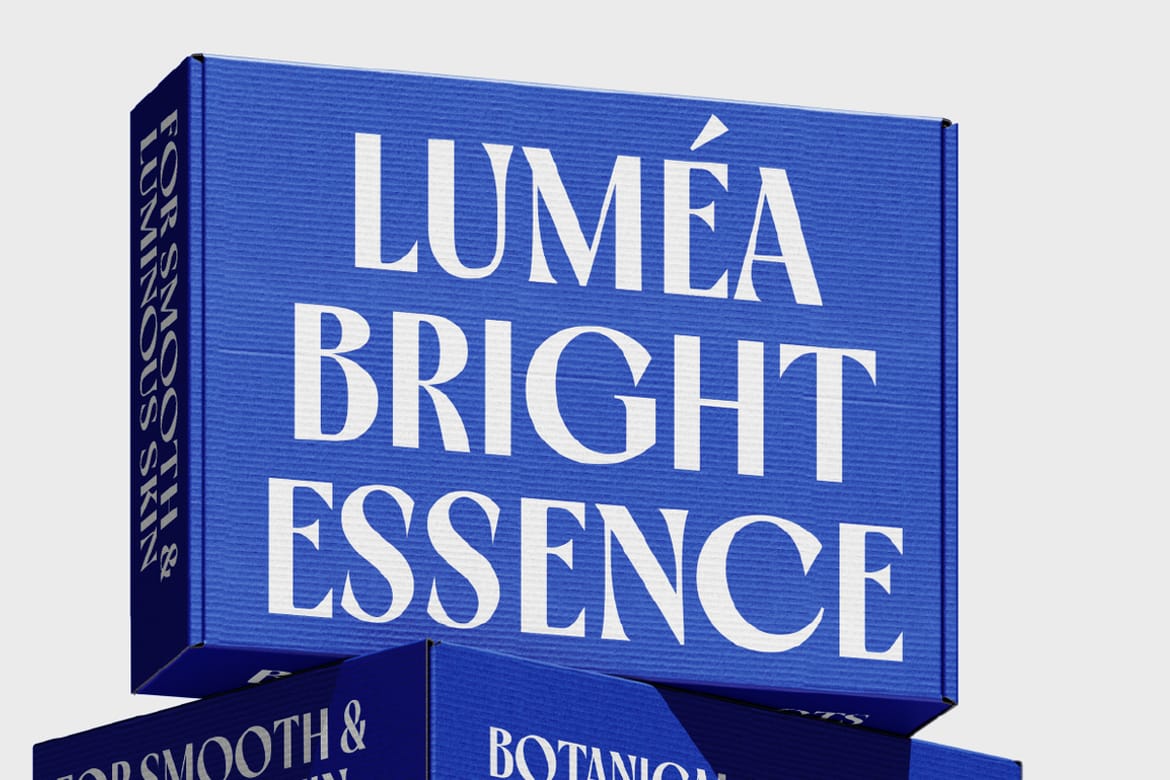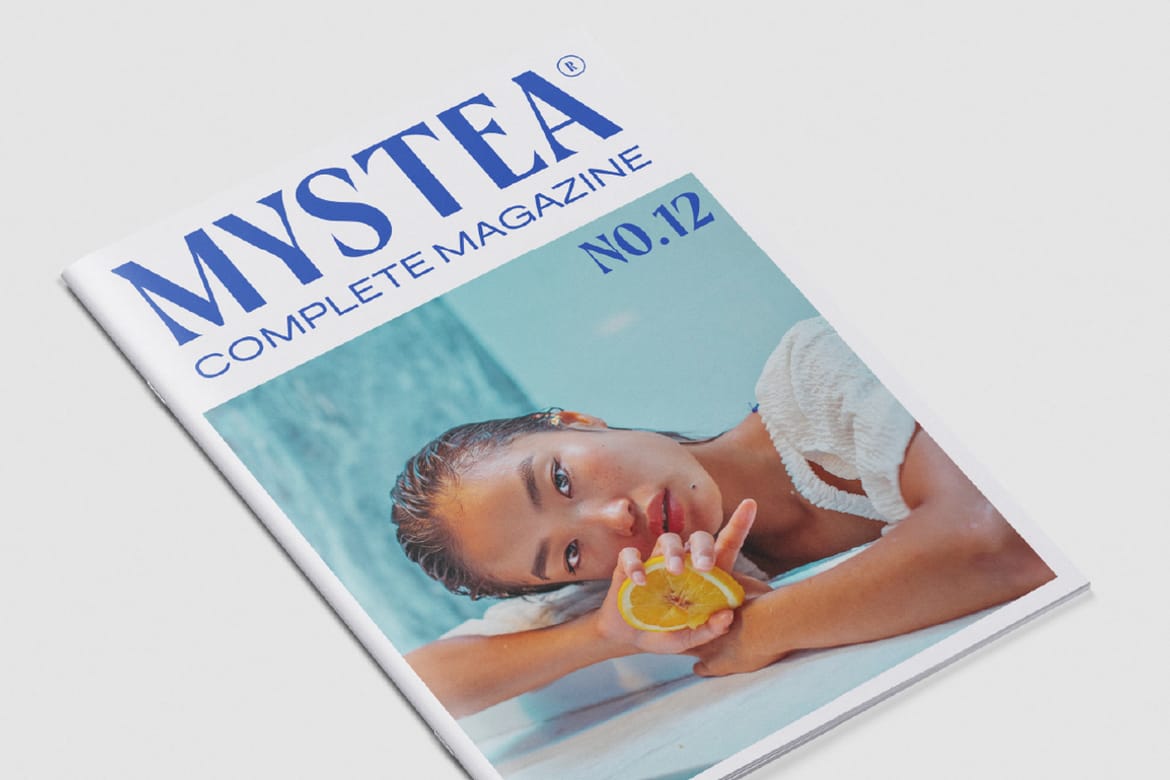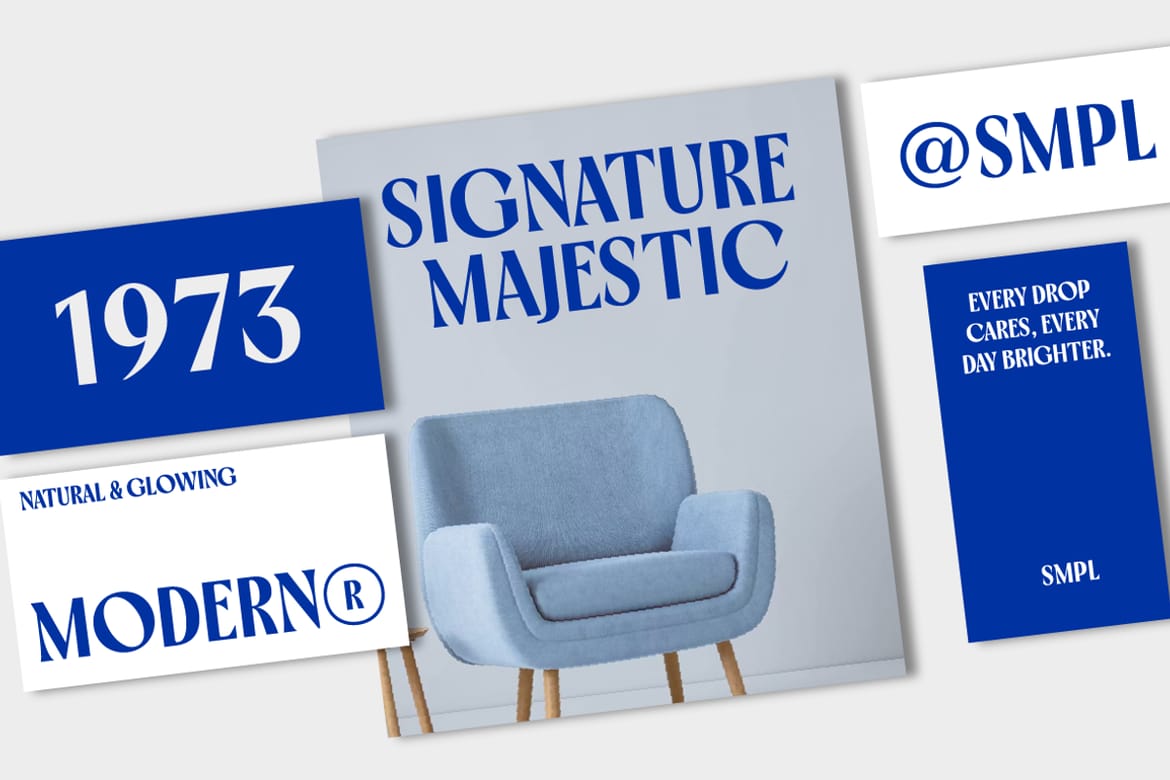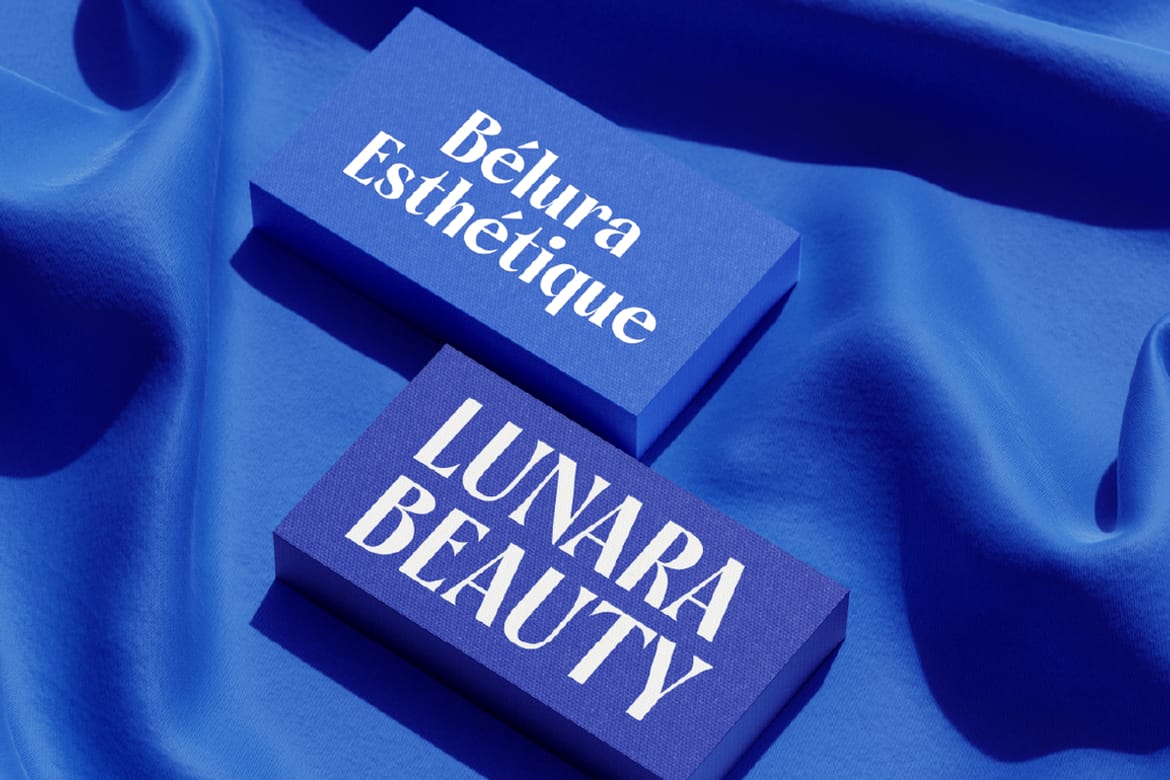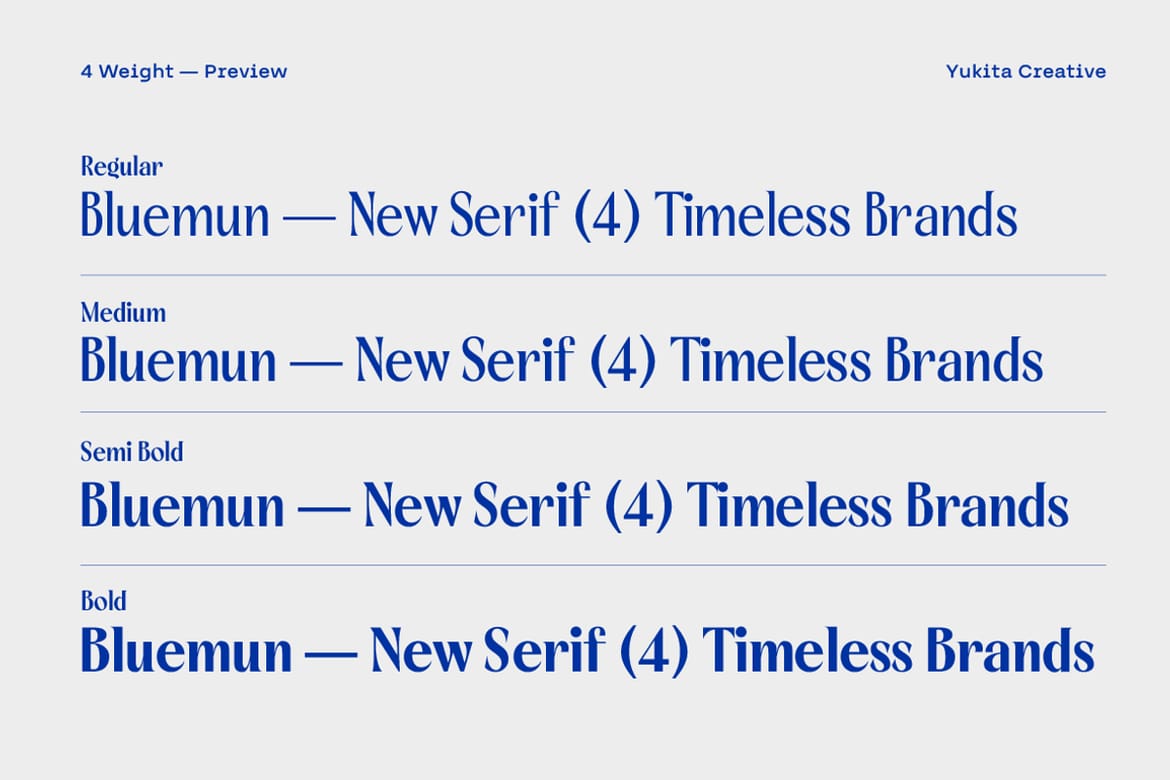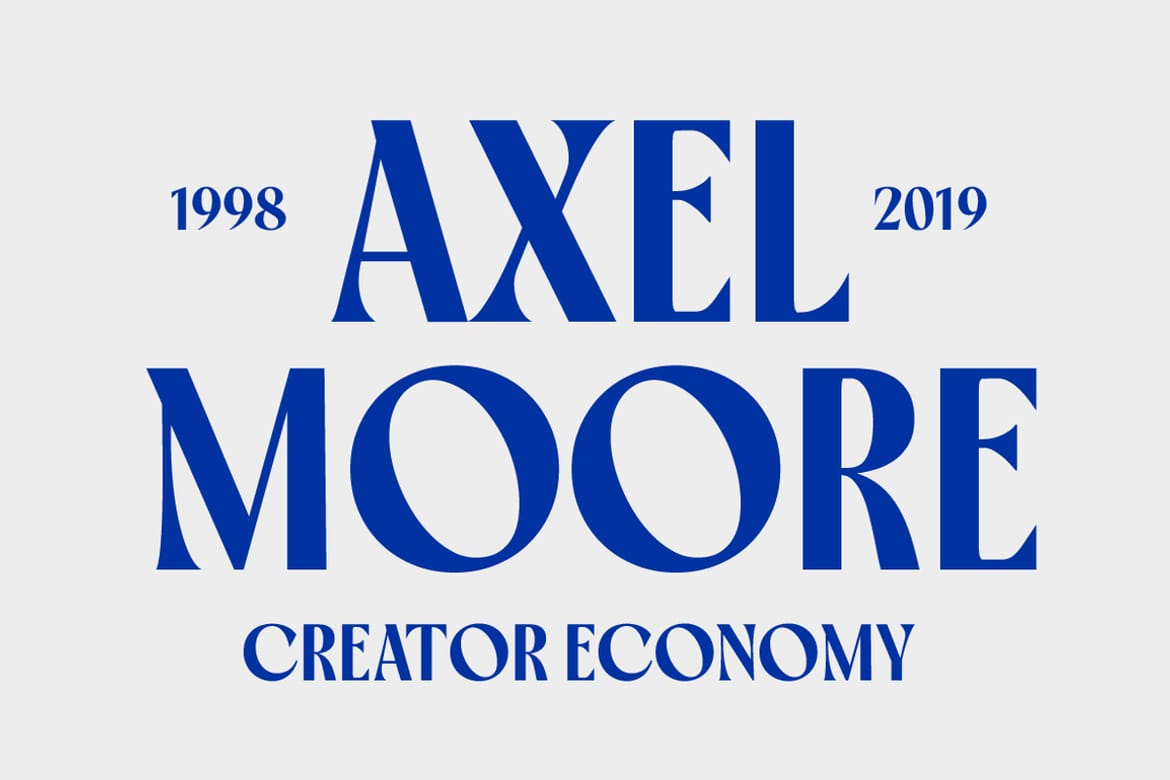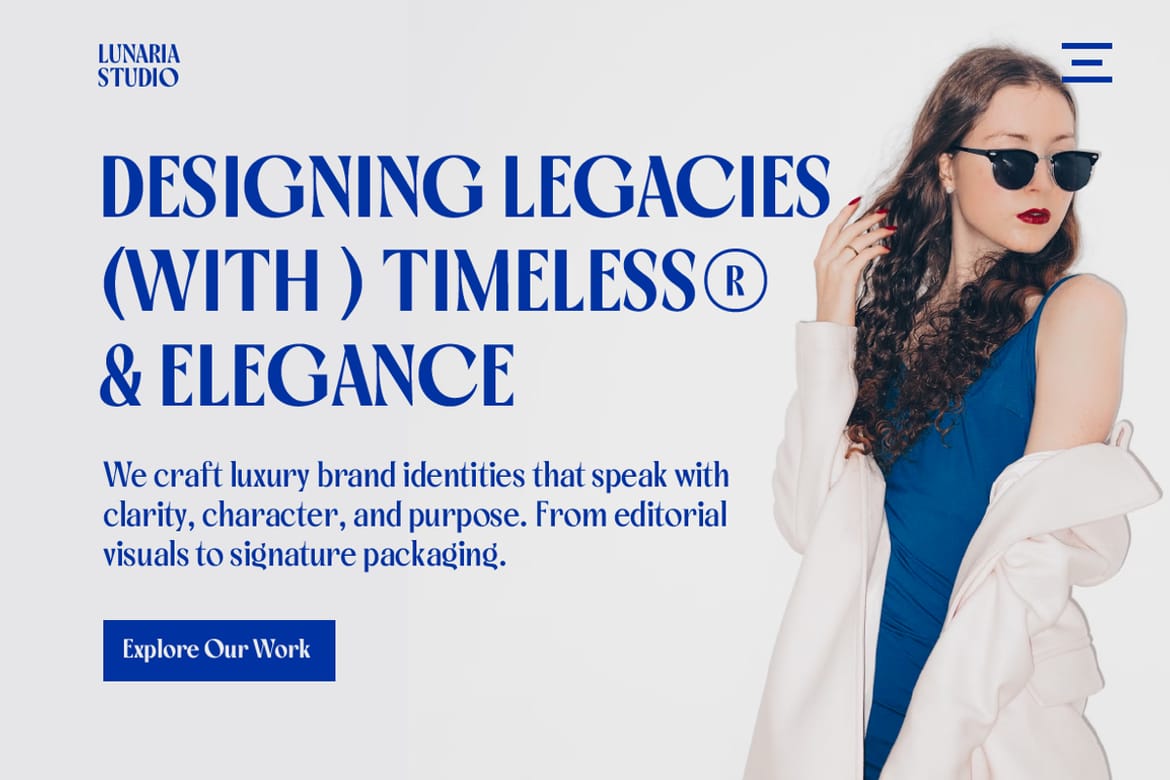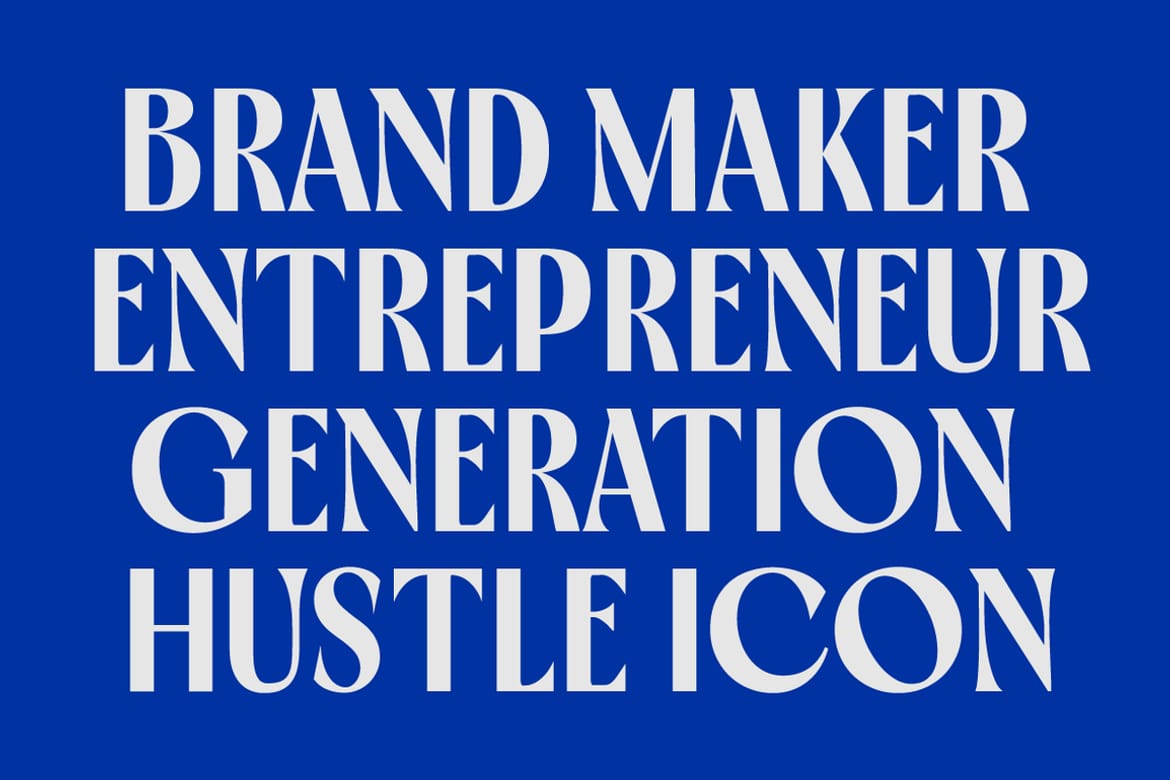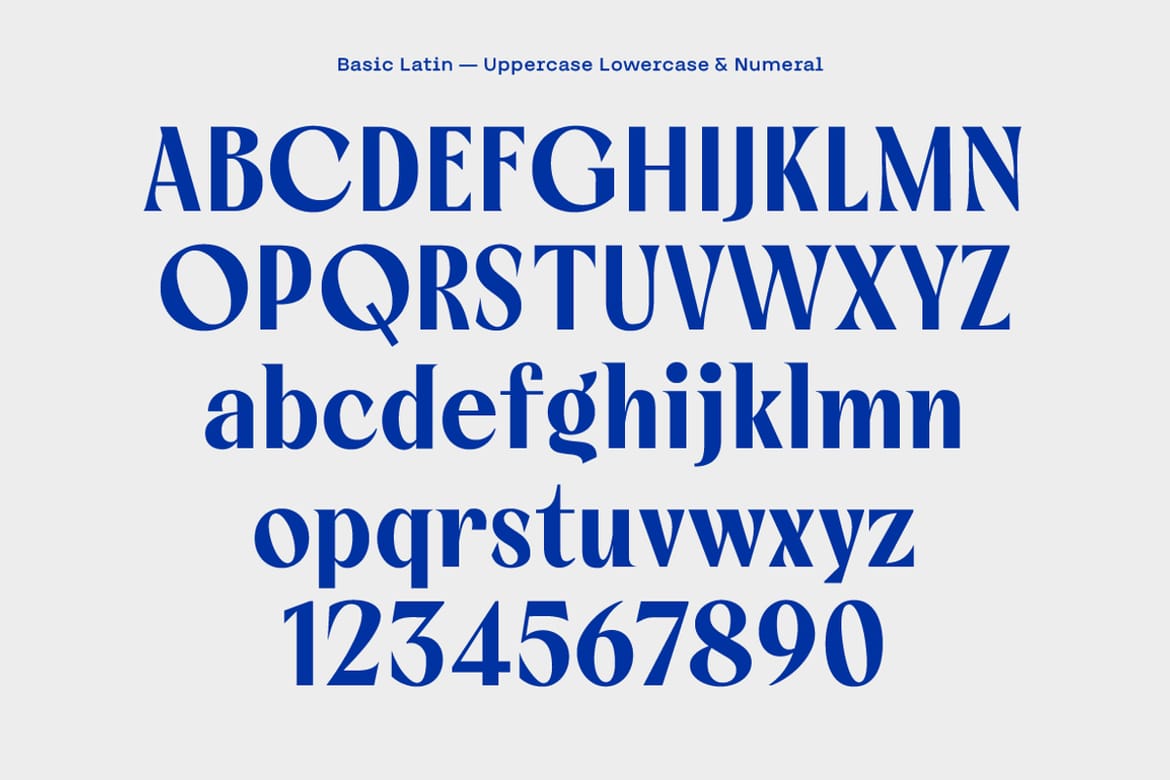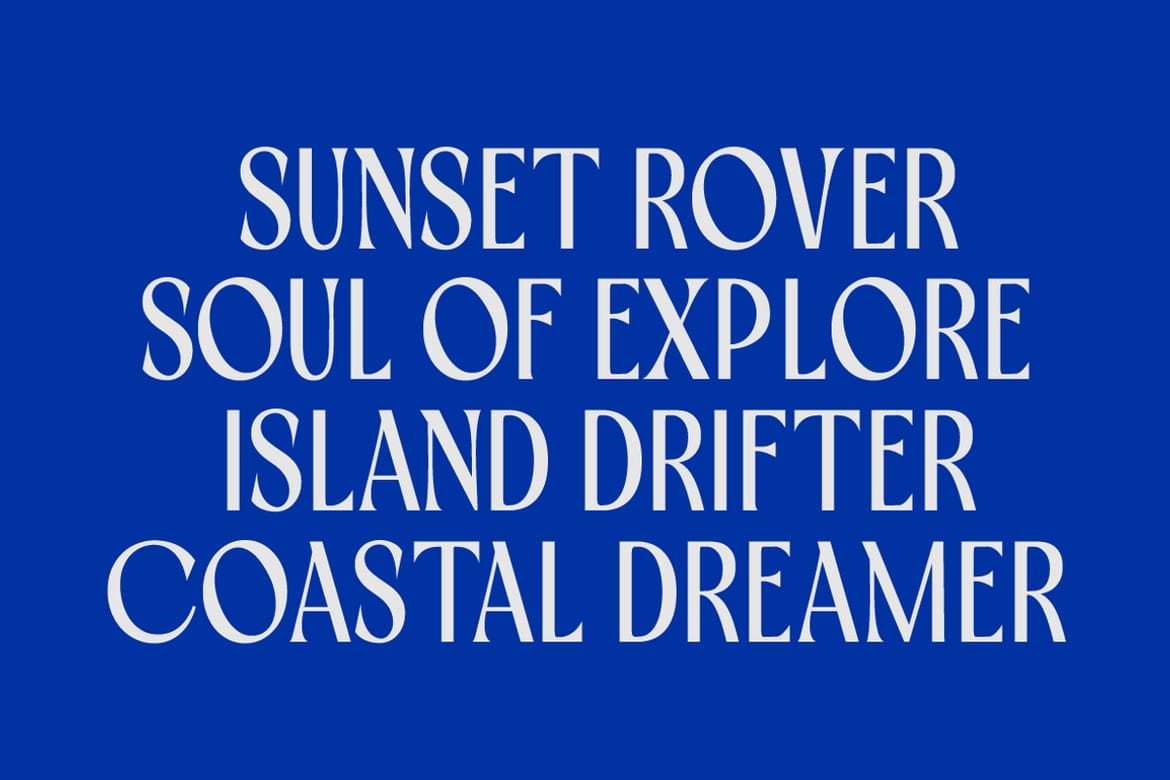
Bluemun Serif is a refined and elegant serif font that blends simplicity with sophistication. Designed with clean lines and graceful curves, it brings a timeless aesthetic to your modern design needs. Whether you're working on digital or print projects, Bluemun Serif ensures your typography stands out with style and clarity.
Available in 4 versatile weights — Regular, Medium, SemiBold, and Bold — this typeface is ideal for creating eye-catching headlines, professional branding, stylish invitations, and polished editorial layouts.
Font Features:
• Elegant serif design with clean, smooth details
• Great readability for both display and text use
• Multilingual support (Western, Central, and Eastern European languages)
• Optimized for both print and web
Perfect For:
• Branding and logo design
• Wedding, fashion, and lifestyle invitations
• Editorial layouts, magazines, and books
• Website headers and hero sections
• Product packaging and label design
• Classy and minimal social media graphics